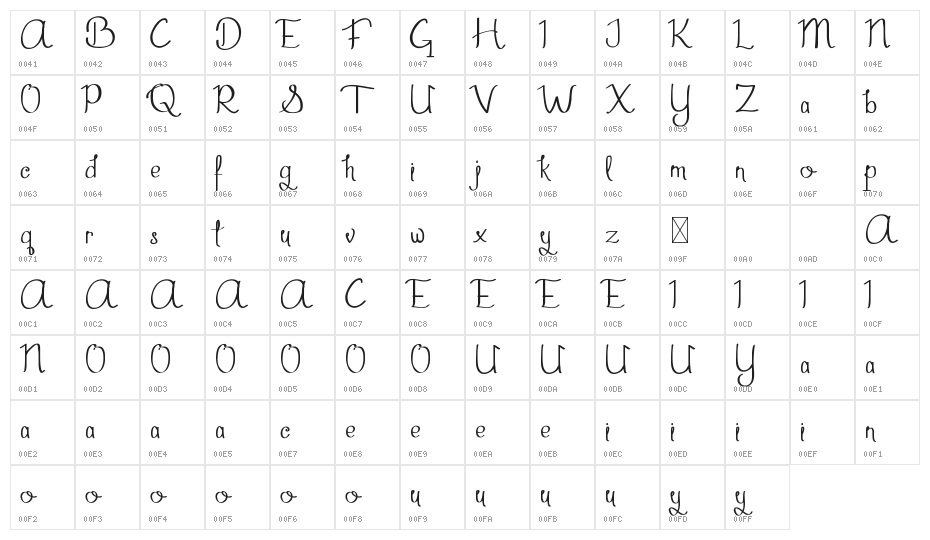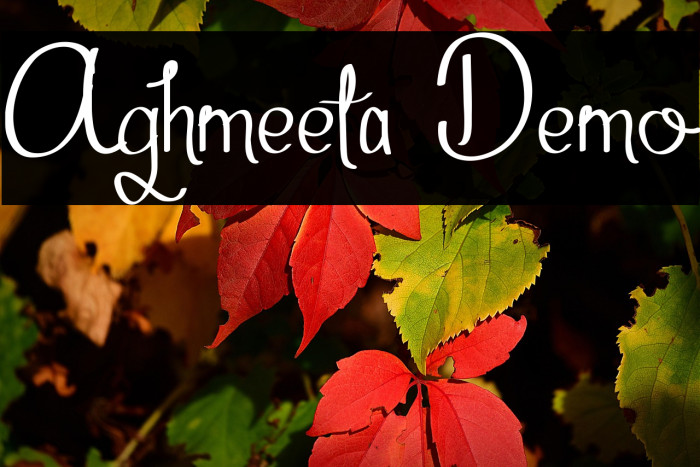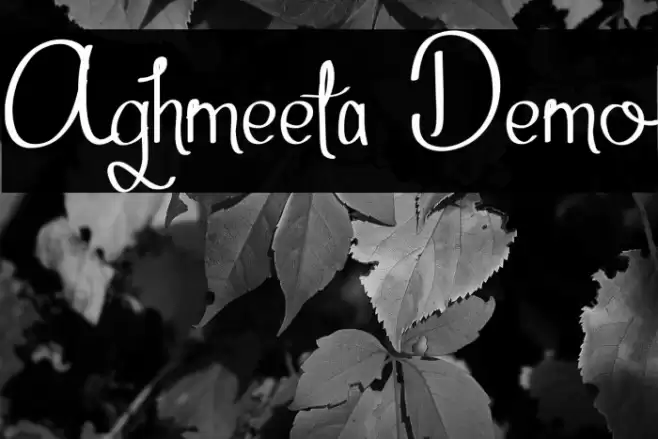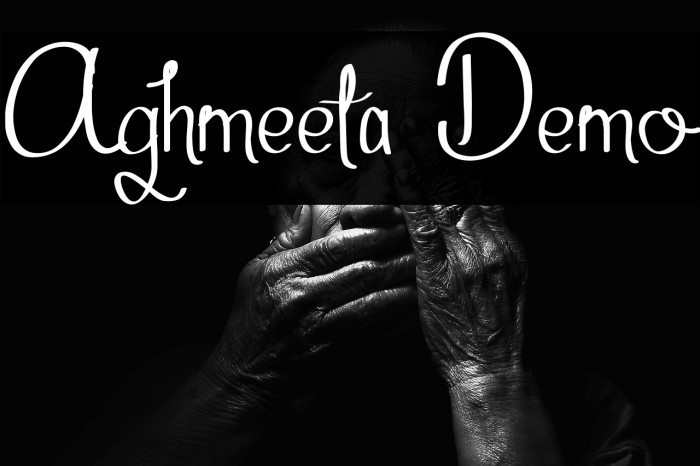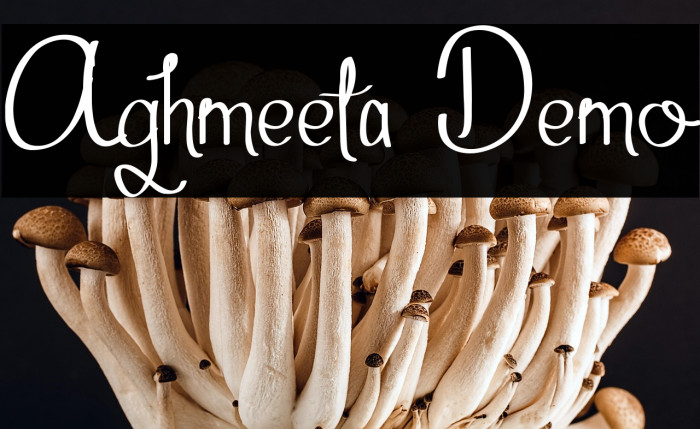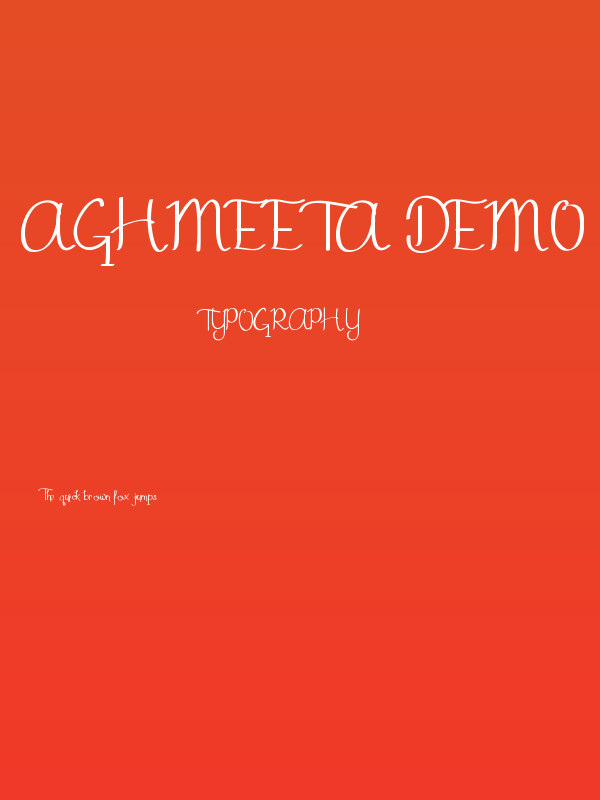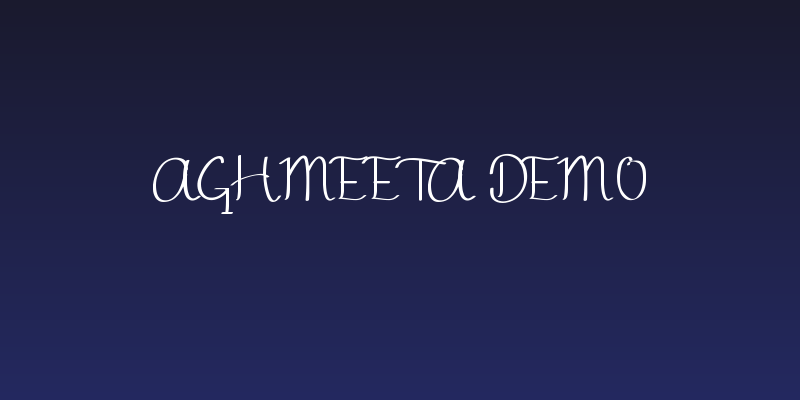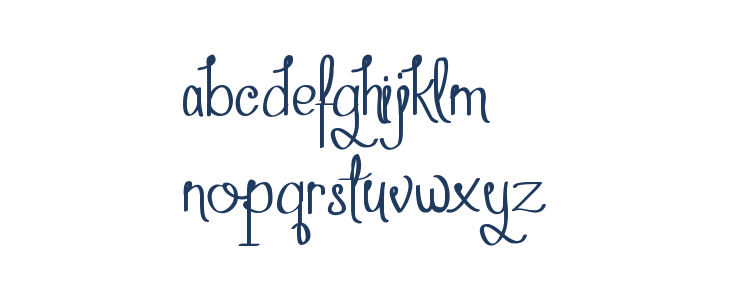
Aghmeeta Demo Font
Aghmeeta Demo Description
This font features a unique and artistic script style with a hand-drawn appearance. The letters are characterized by their flowing, cursive forms, which give them a whimsical and playful feel. The uppercase letters are elegant and elongated, with distinctive loops and curves that add a touch of sophistication. The lowercase letters maintain a consistent style, with smooth connections between characters, enhancing the overall fluidity of the text. The font includes a full set of numerals and special characters, ensuring versatility for various design needs. Its artistic flair makes it suitable for creative projects that require a personal and expressive touch.
| Proposed Projects | Ideal for wedding invitations, greeting cards, branding, and artistic projects. |